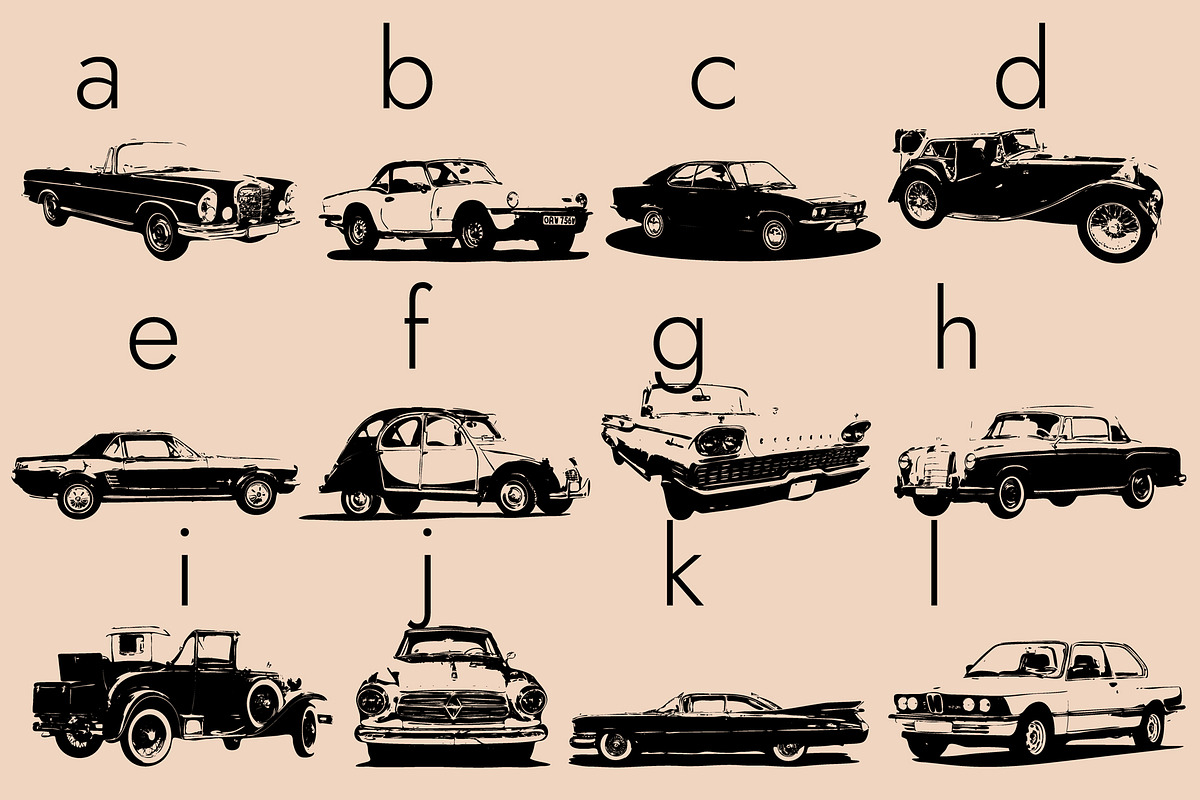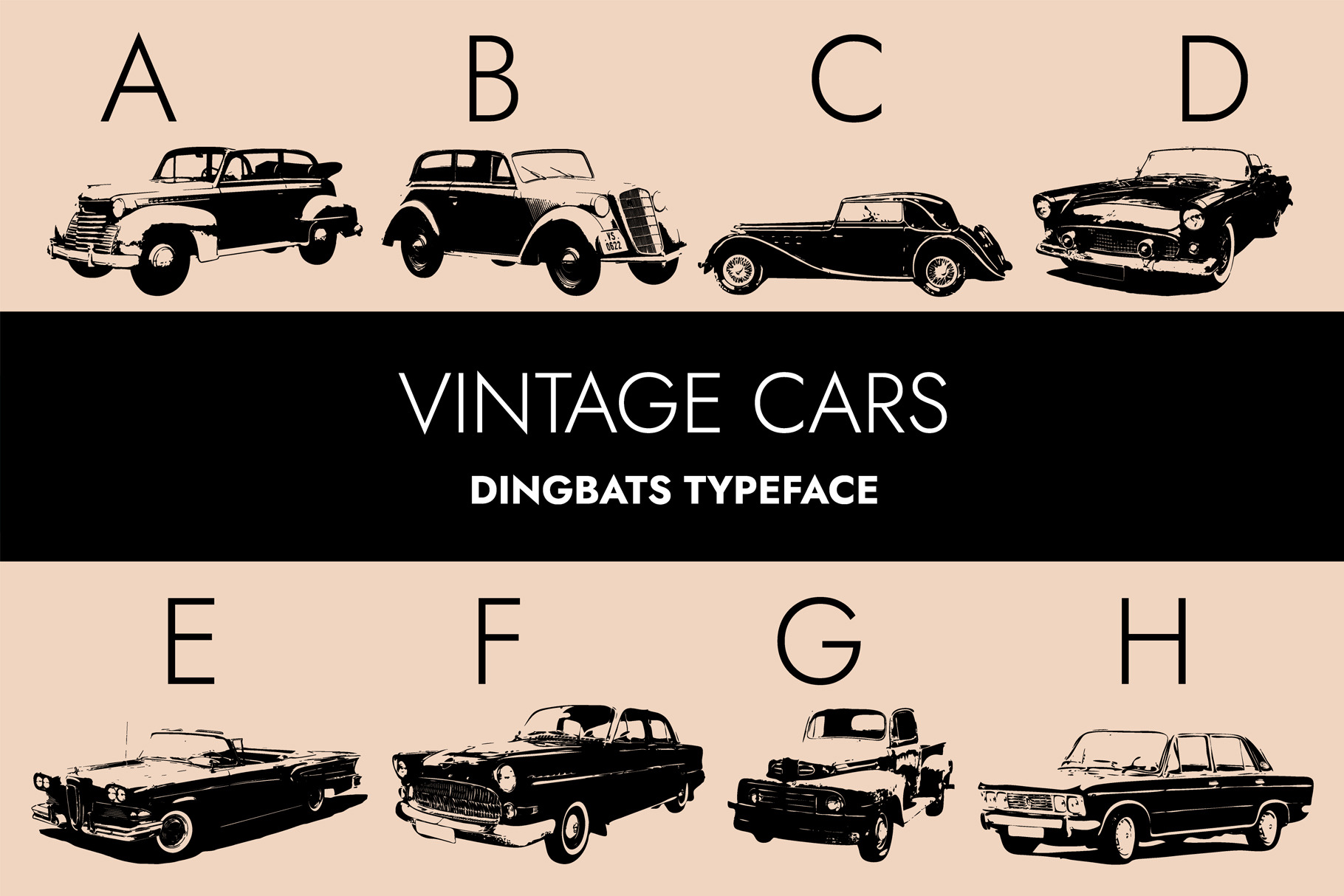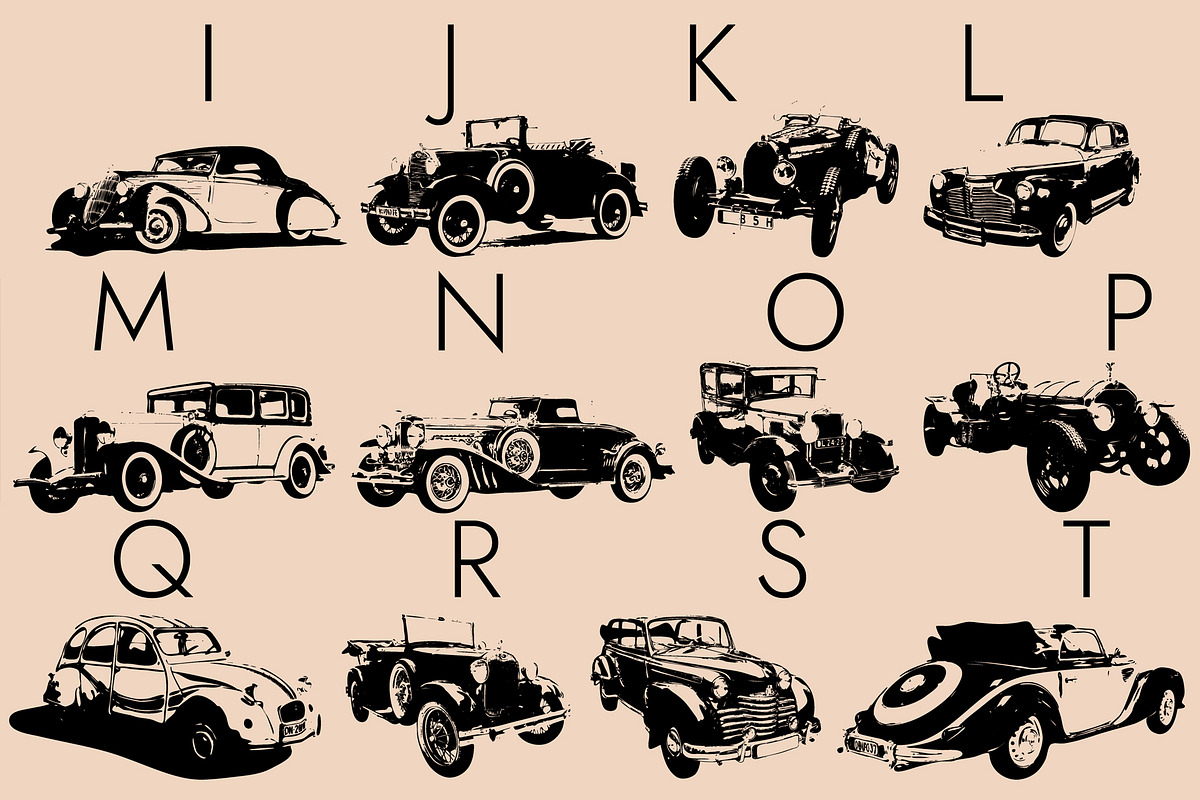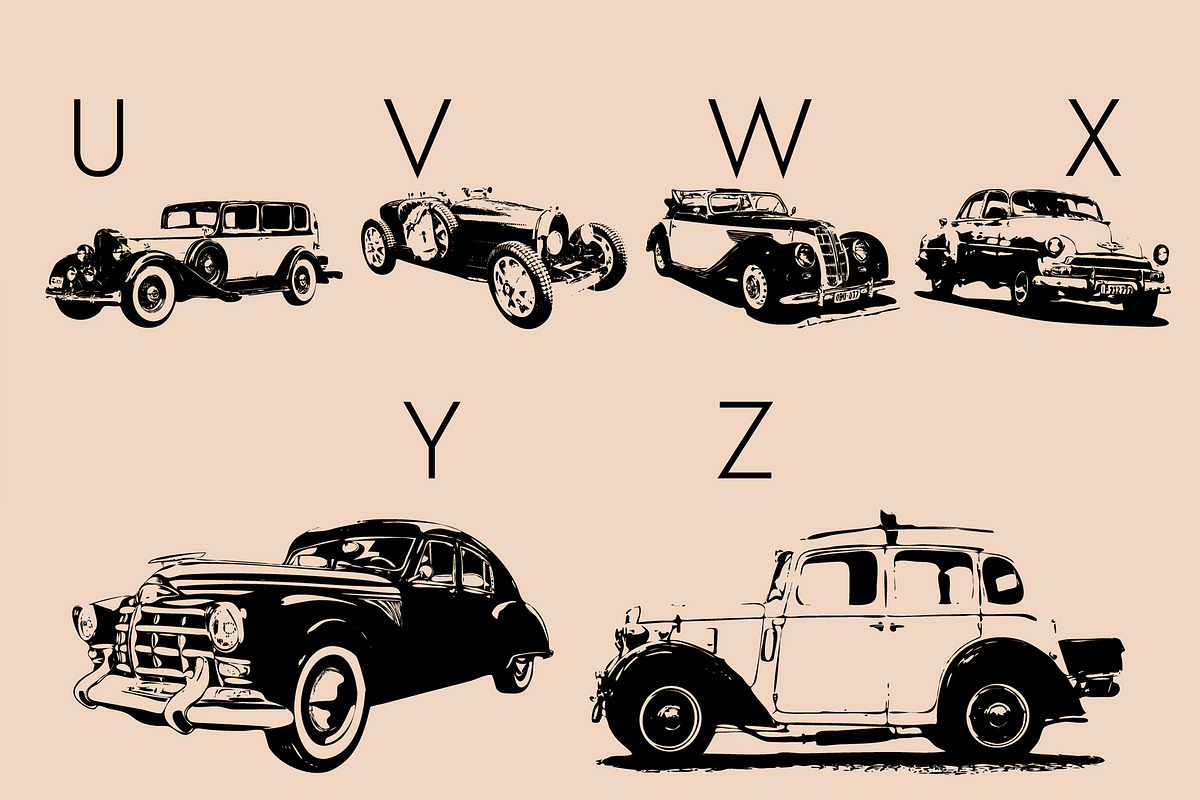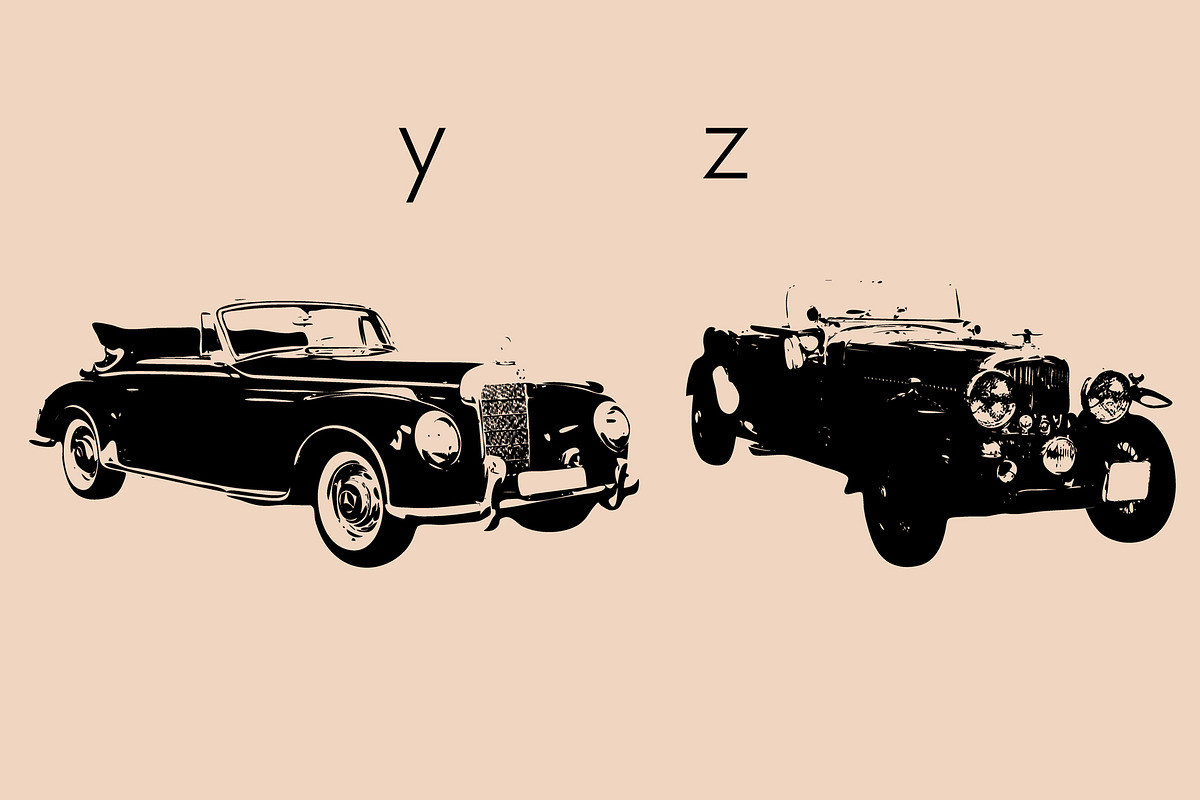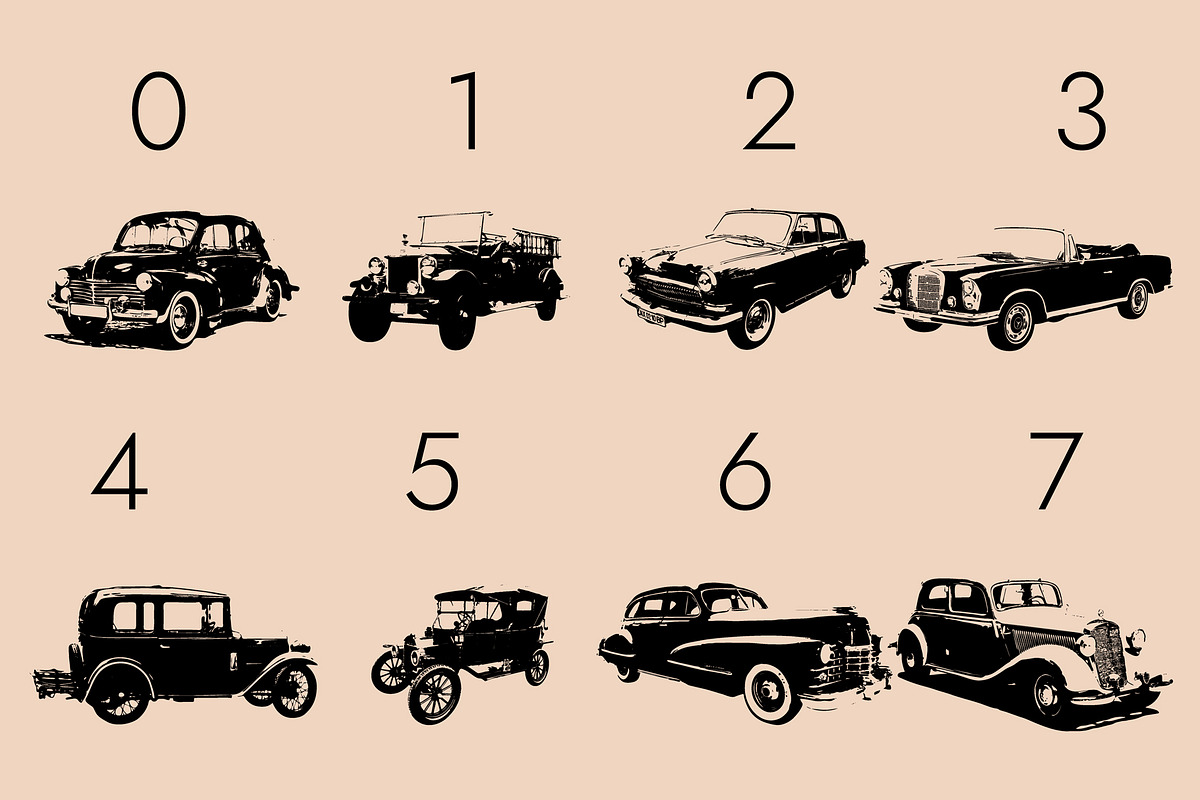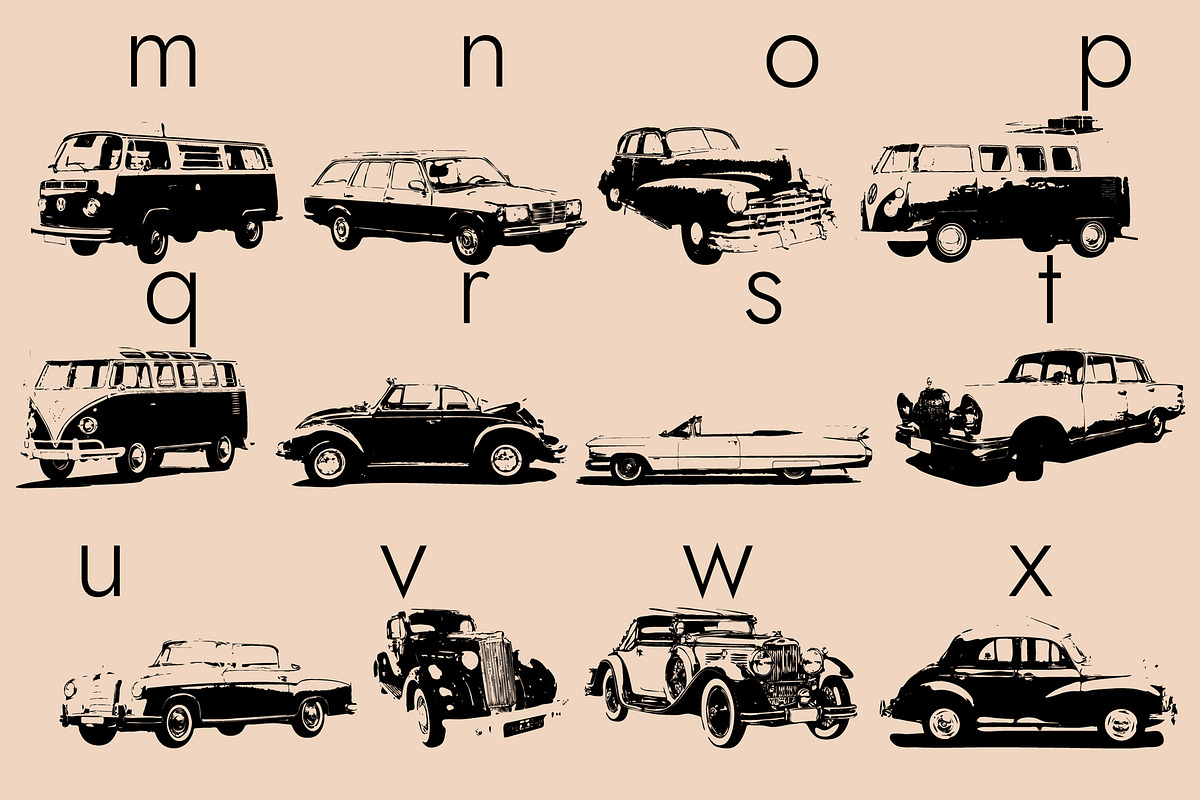
Vintage Cars Dingbats Font
Vintage Cars is an incredibly cool and interesting dingbats font. No matter the topic, this font will be an incredible asset to your fonts’ library, as it has the potential to elevate any creation.